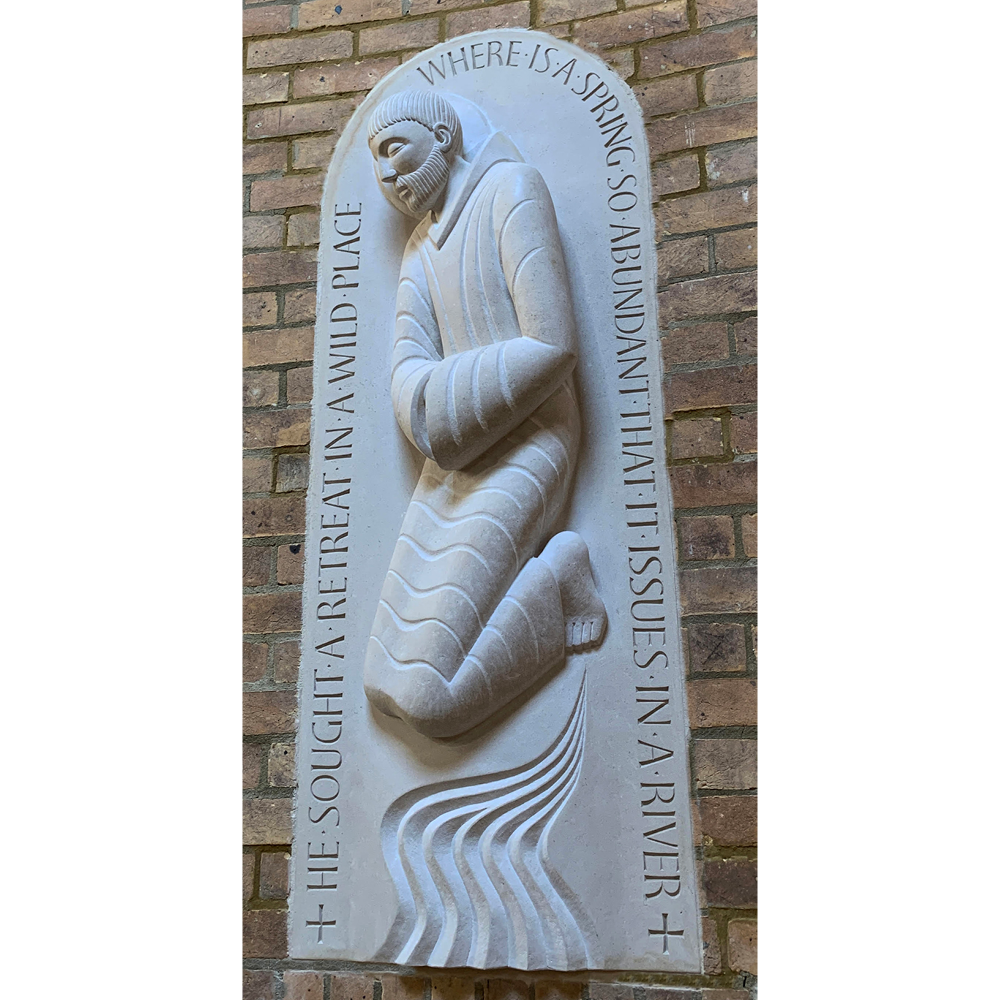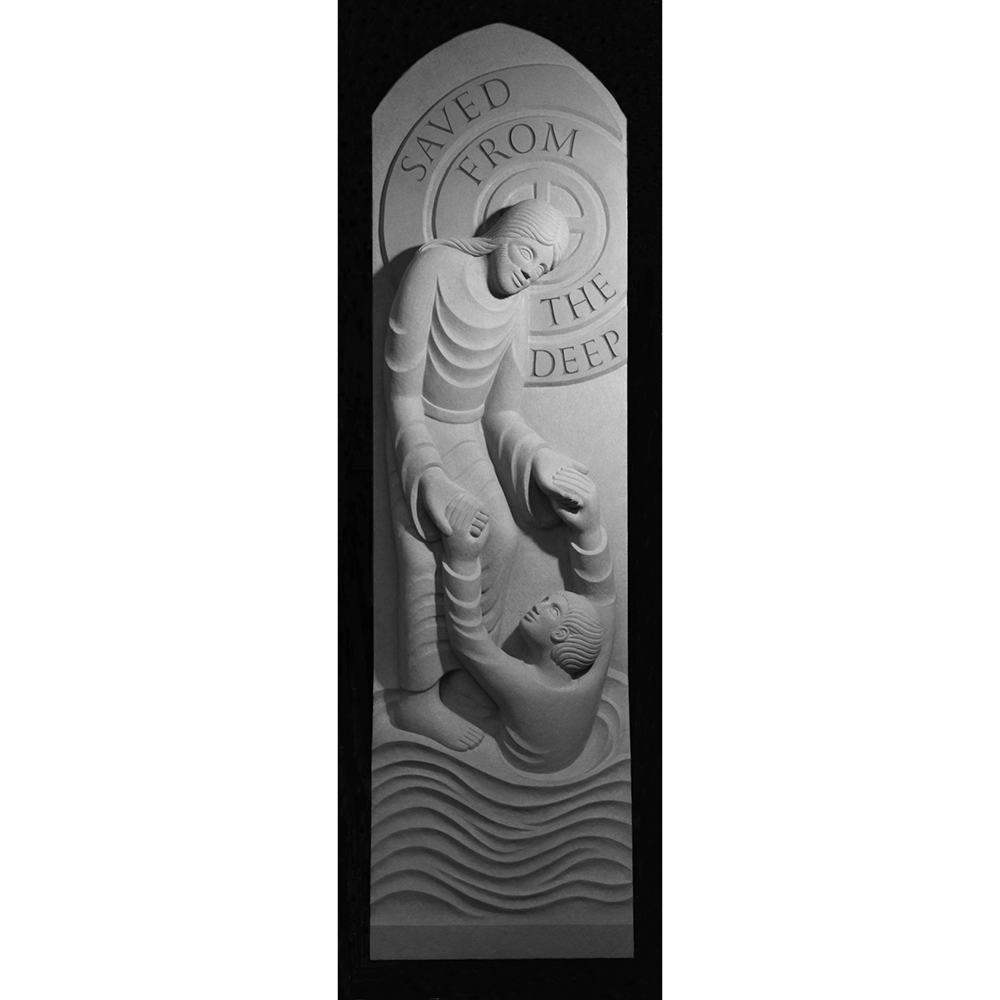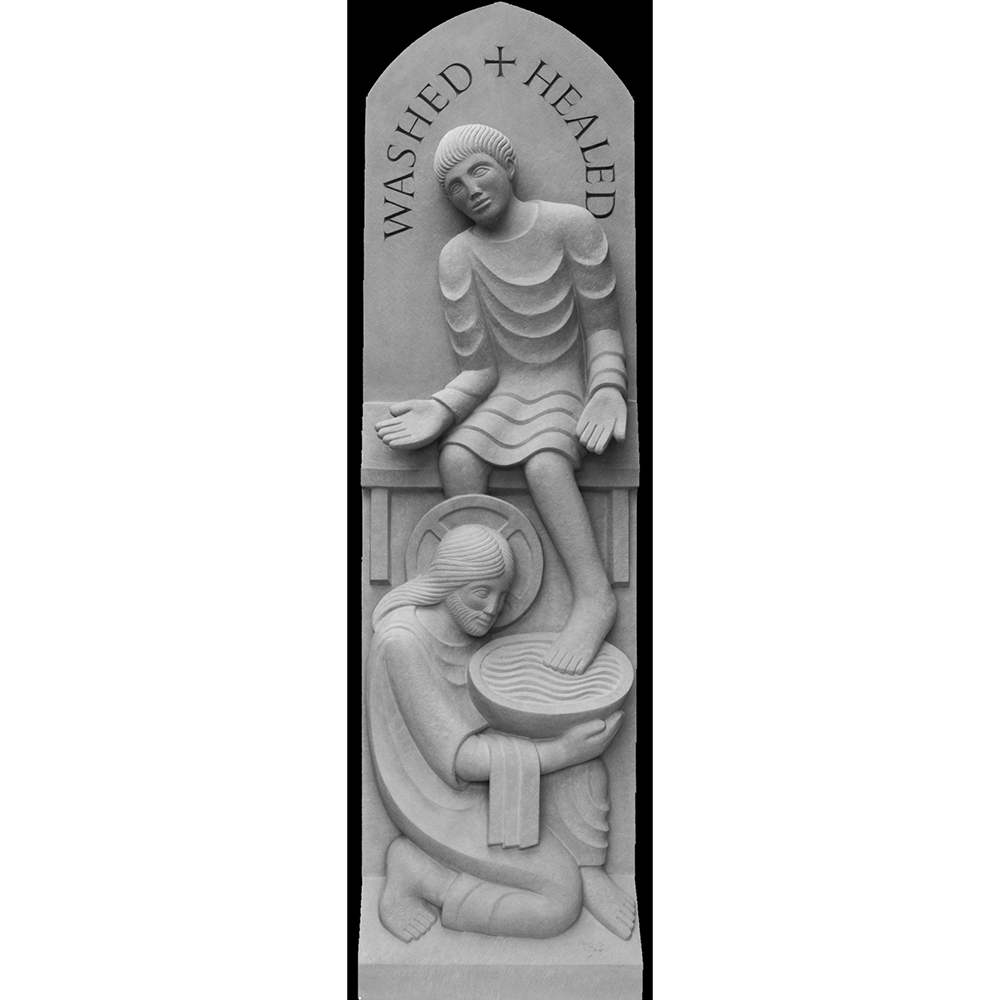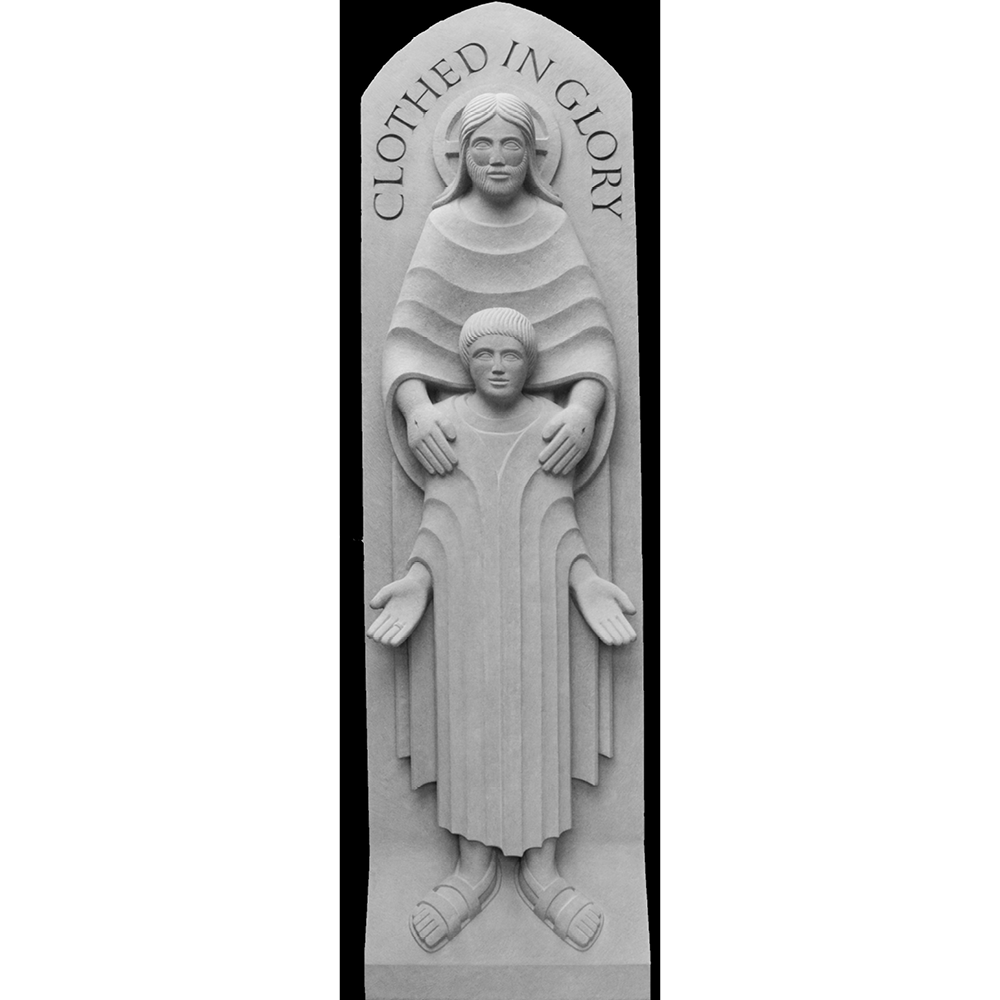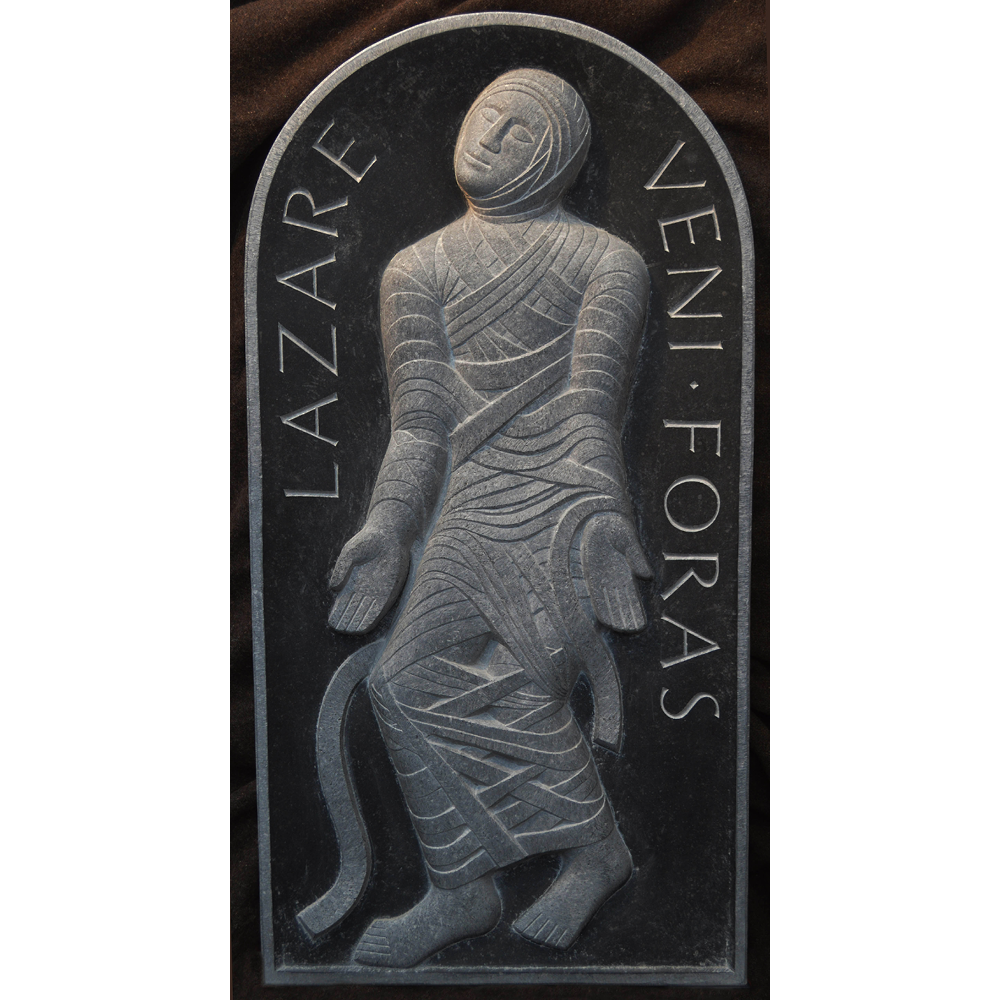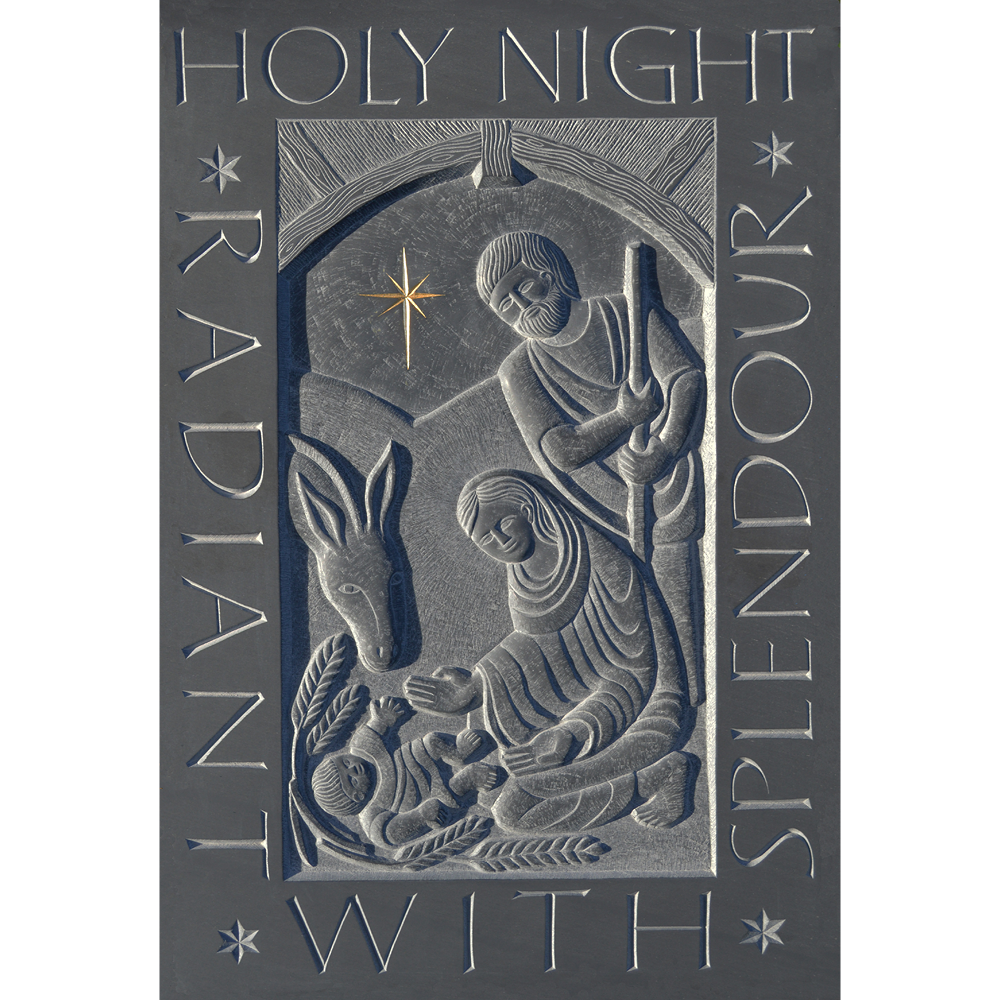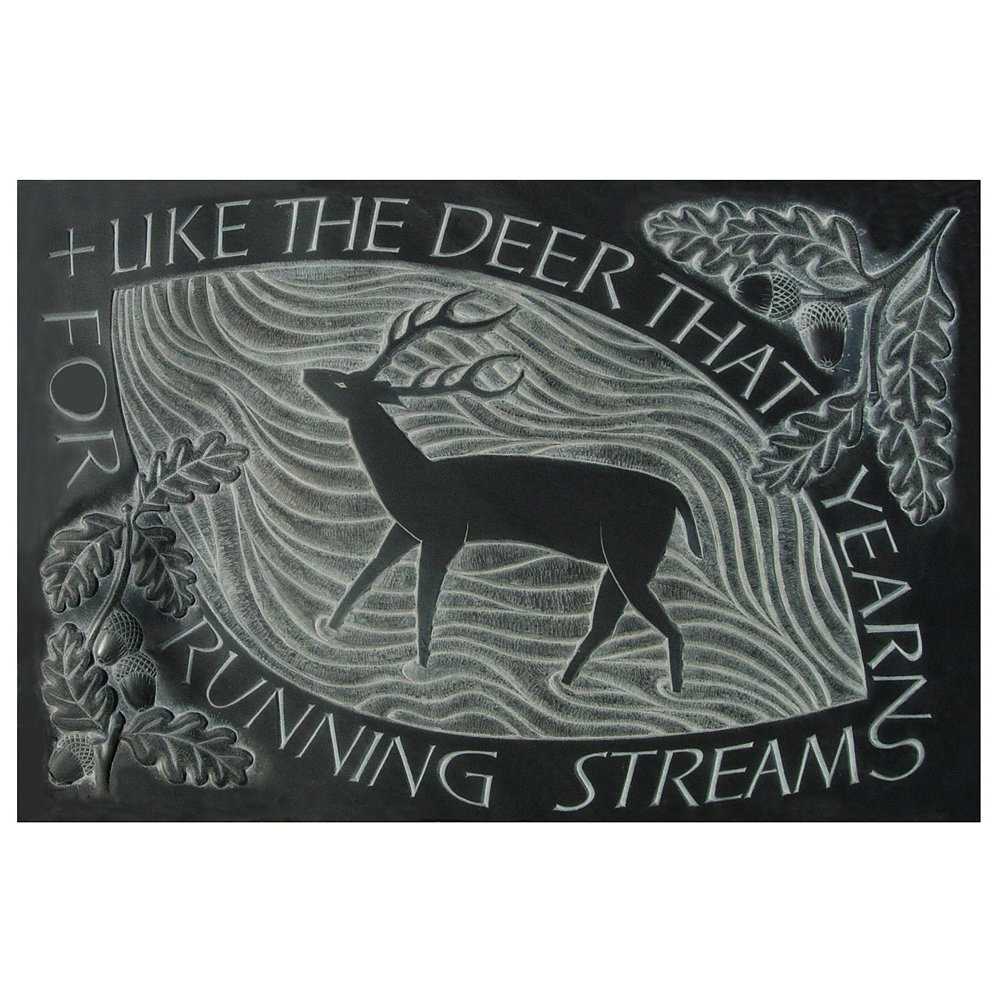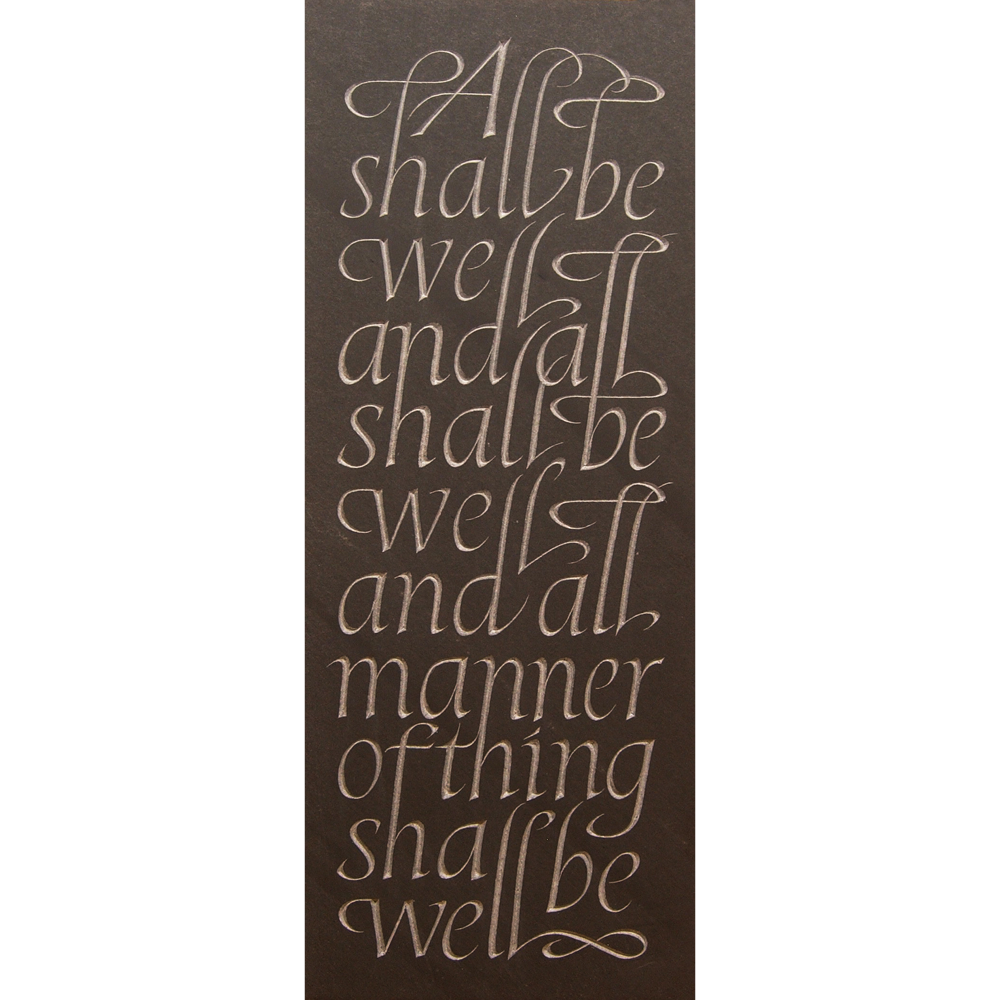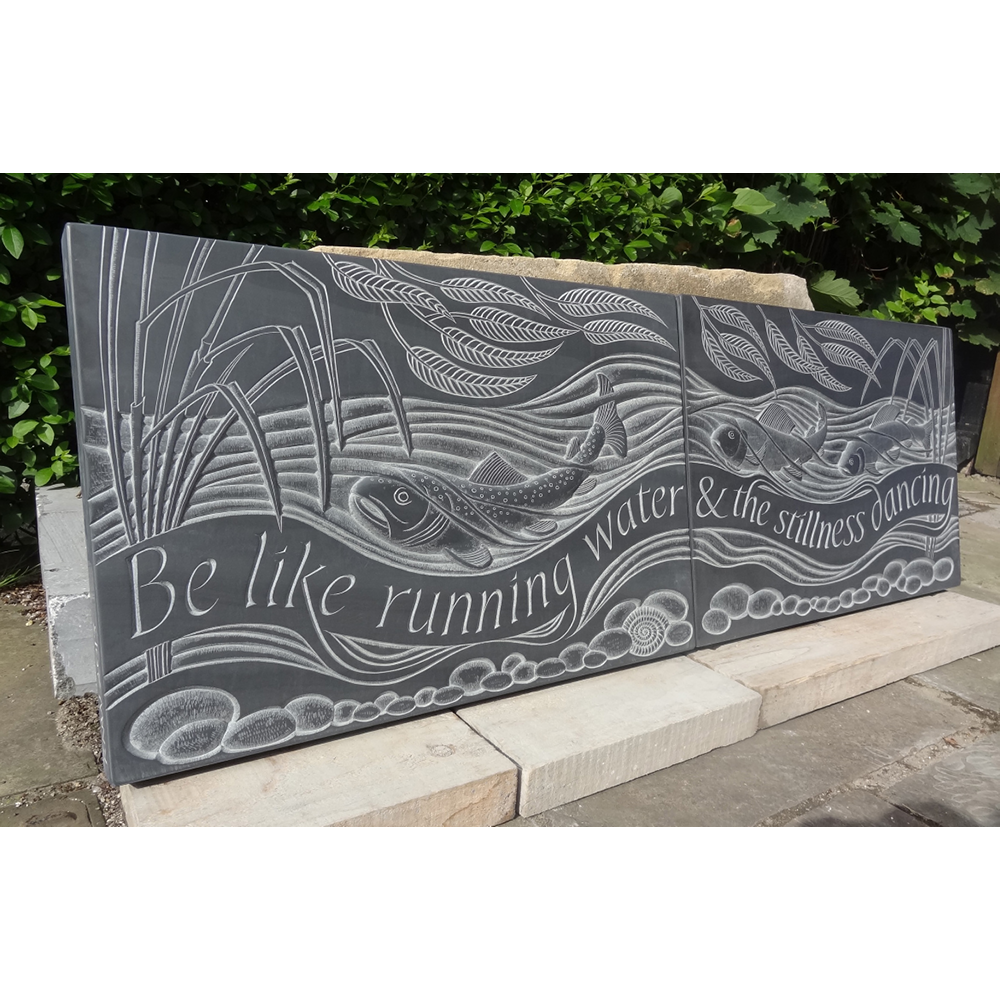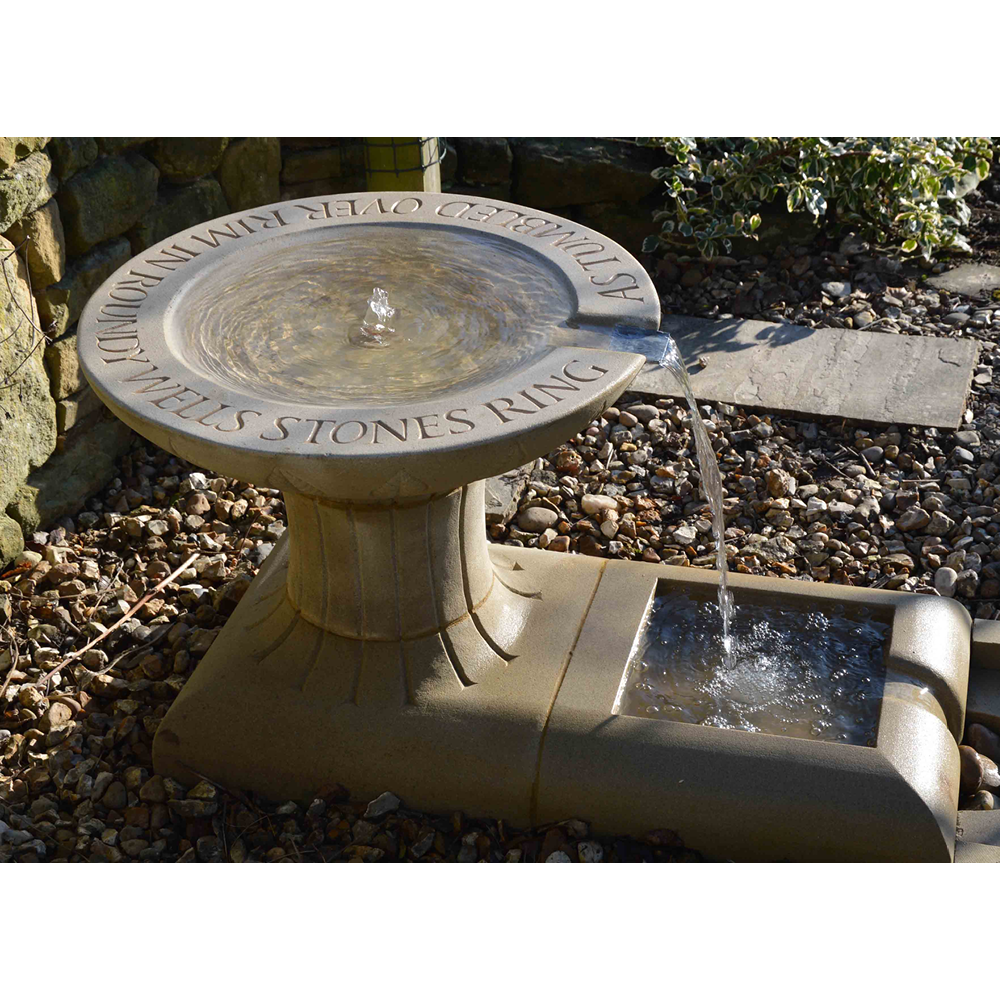
My first teacher in the art and craft of stone sculpture and letter cutting was my father Peter Watts FRBS. Peter was a sculptor in the Gill tradition and taught me from childhood (hanging around in the studio) how to handle tools, respect and understand the characters of various stones and to see strength of form and clarity of line in all good work.
I have a particular interest in creating work that responds to and enhances the spirit of a place whether this be a building or a landscape and am interested in creating work that together with its context creates a sense of ‘sacred space’ or places for reflection and contemplation.